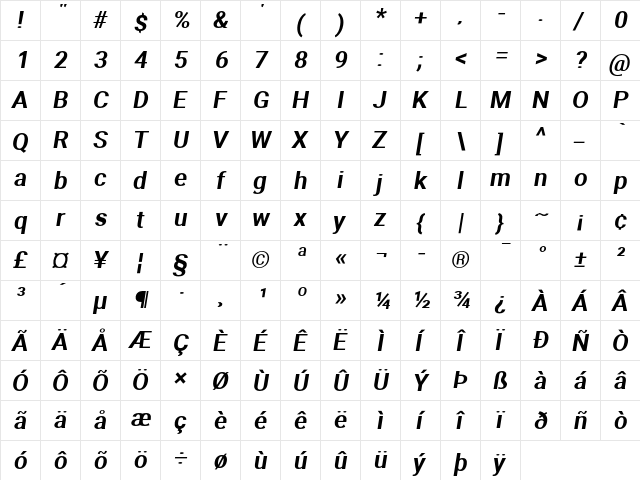
Aerodynamic Obl
Design Context for Aerodynamic Typeface
Aerodynamic offers clean, dependable letterforms without strong stylistic allegiance, making it a practical choice for designers who need flexibility.
Pro Tip: Pair Aerodynamic with a font of contrasting weight or personality to build a more expressive typographic hierarchy.